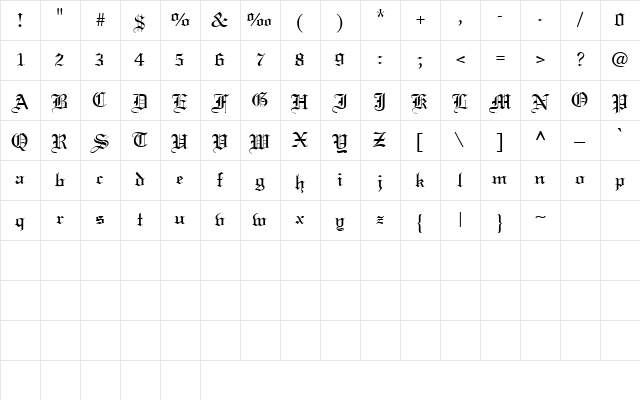
Paraguay Normal Free Font
Paraguay Normal
Paraguay Family
Complete Paraguay Normal glyph index. Displaying only characters natively supported by Paraguay Normal font.
Design Context for Paraguay
Paraguay is a composed and adaptable typeface that performs quietly and consistently across a wide range of design contexts.